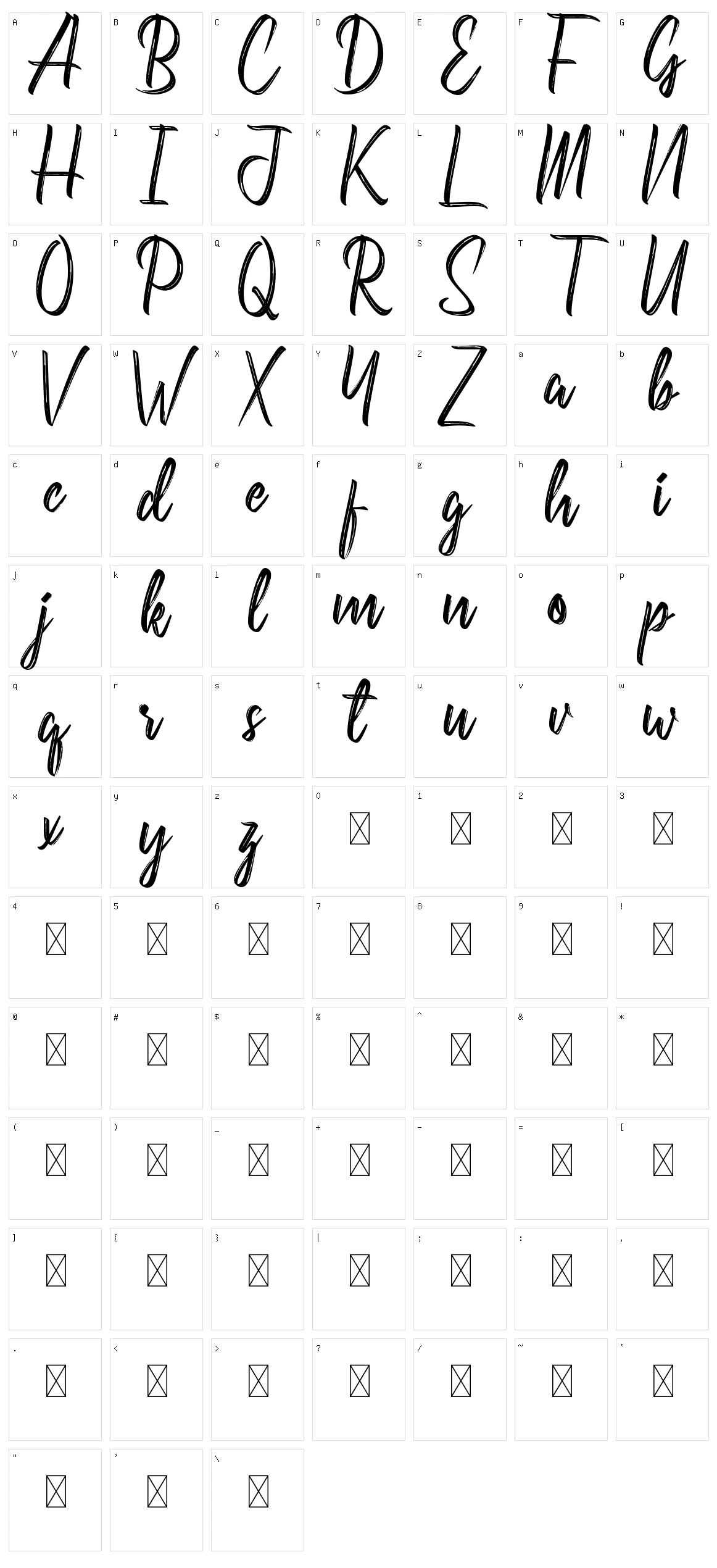
The free font Disgracefull is carefully designed by RaisProject, showcasing a thoughtful balance of creativity and usability and falls under the Script font style. When you download the ZIP file, it contains only 143.18 KB of font files, making it lightweight and quick to download. Please review the license details below to understand permitted usage and distribution rights. If license information is not available, we recommend using this font for personal projects only or contacting the author directly for commercial usage permissions.